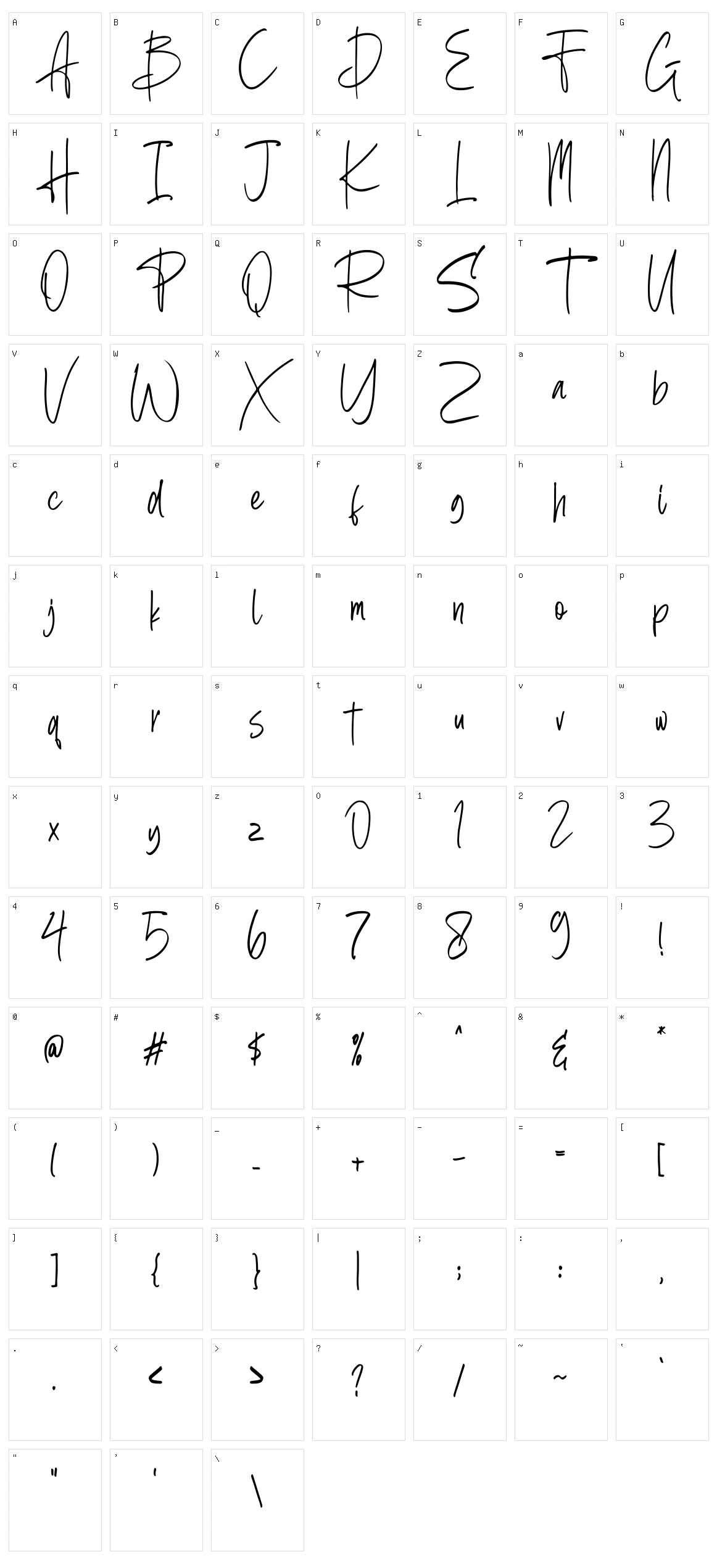
The free font Berthusen is carefully designed by Sabrcreative, showcasing a thoughtful balance of creativity and usability and falls under the Script font style. When you download the ZIP file, it contains only 46.02 KB of font files, making it lightweight and quick to download. Please review the license details below to understand permitted usage and distribution rights. If license information is not available, we recommend using this font for personal projects only or contacting the author directly for commercial usage permissions.